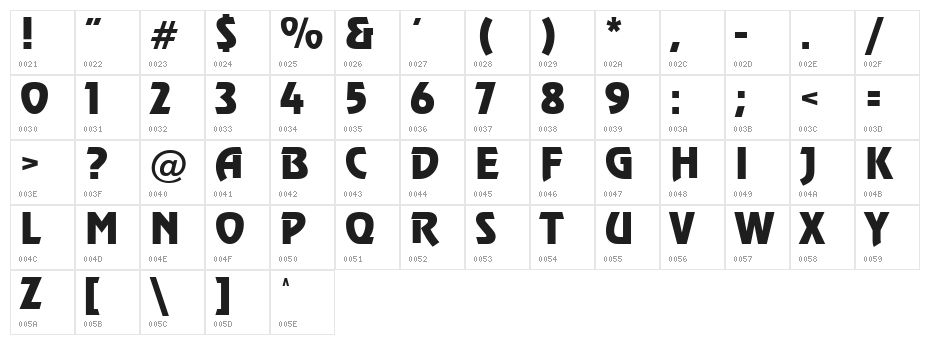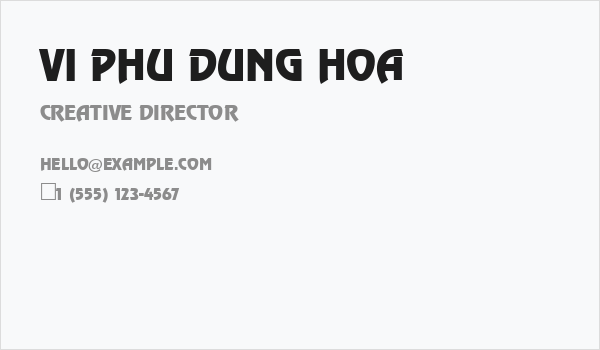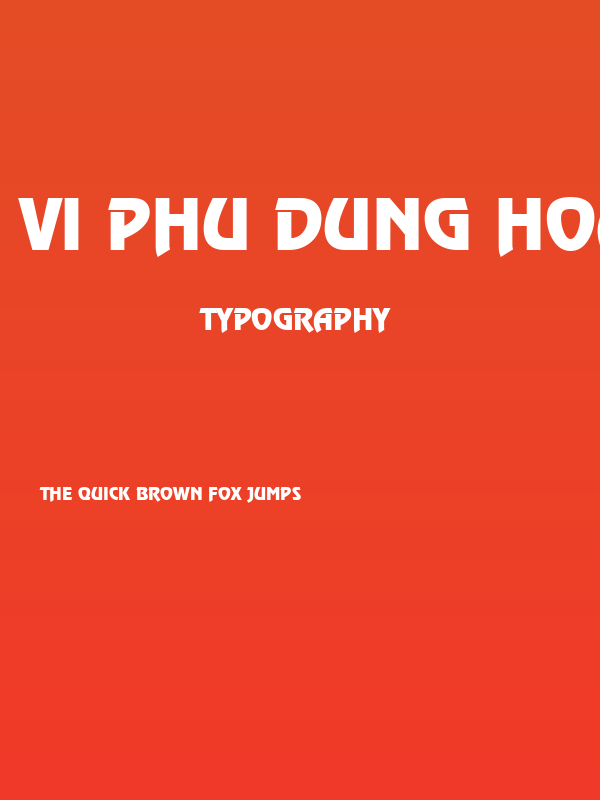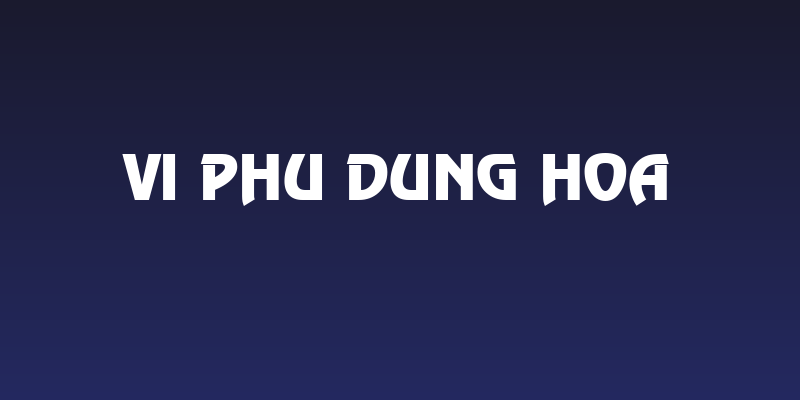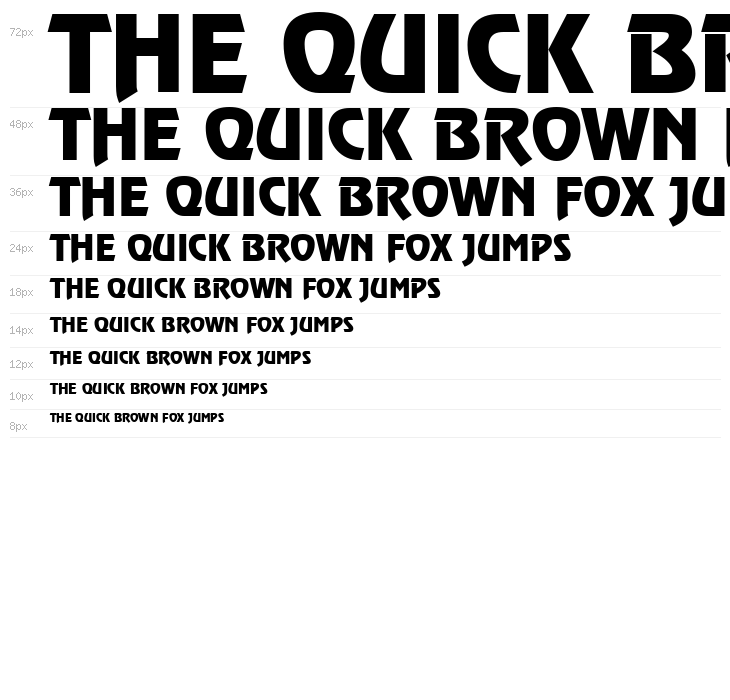
VI Phu Dung Hoa Font
VI Phu Dung Hoa Description
This font features bold, angular characters with a strong presence. The uppercase letters are designed with sharp edges and a slight slant, giving them a dynamic and modern appearance. The numerals are equally bold, maintaining the angular style, which ensures consistency across the typeface. Special characters are crafted with the same boldness, making them stand out. The overall design is impactful, making it suitable for attention-grabbing headlines or logos. The font's unique style is both modern and slightly futuristic, with a geometric influence that adds to its distinctiveness.
| Proposed Projects | Ideal for branding, advertising, posters, and any project requiring a strong visual impact. |